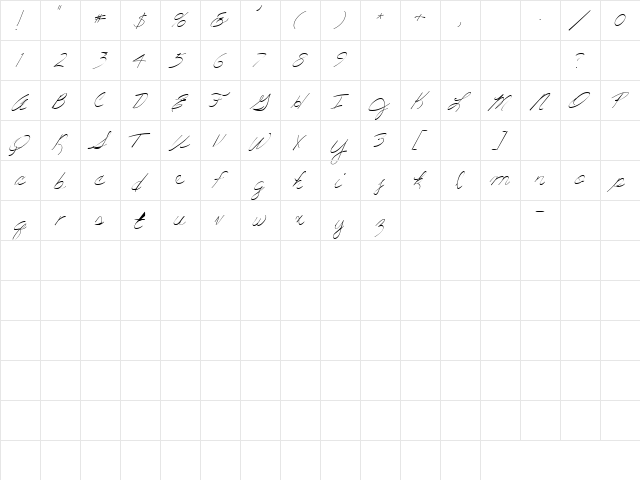
LD Fine Script 7 Regular Font Preview
LD Fine Script 7 Regular
Design Context for LD Fine Script 7 Typeface
LD Fine Script 7 flows with the natural rhythm of handwritten lettering, making it ideal for designs that call for warmth and personal expression.